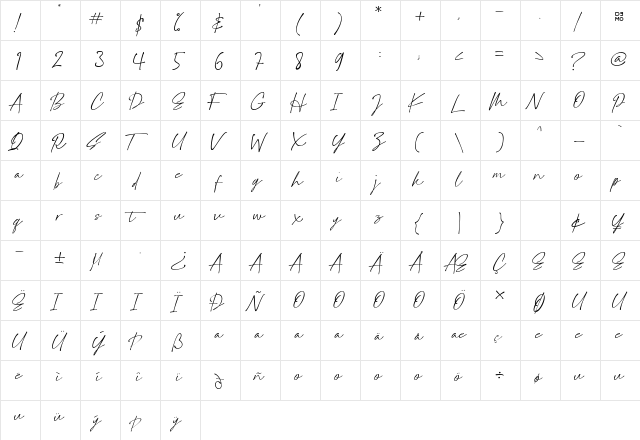
Handletters_Demo Regular
Design Context for Handletters_Demo Typeface
Handletters_Demo flows with the natural rhythm of handwritten lettering, making it ideal for designs that call for warmth and personal expression.
Font Pairing: Combine Handletters_Demo with a simple geometric sans for maximum contrast — the tension between flowing curves and clean structure is a classic typographic pairing.
Pro Tip: Pair Handletters_Demo with a clean sans-serif for supporting text. The contrast between fluid script and geometric structure creates an elegant typographic hierarchy.